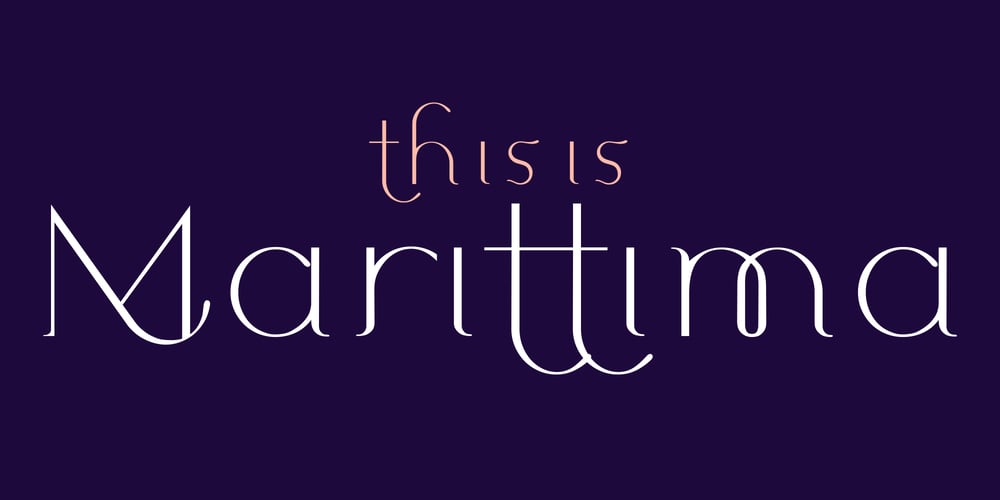
Marittima Font Family was designed by David Szabo and published by LostandFoundry. Marittima contains 2 styles and family package options. Marittima is a beautifully expressive new classical font for designers from LostandFoundry.This typeface has unique characteristics and embraces fluidity, chic and luxury, without being too traditional, as it has a slightly modern feel to it. When you need a distinctive serif font with its own identity that bridges the classic and the modern, Marittima is perfect to add to your type catalogue. Use Marittima in your design projects – in headlines, logos, packaging design, t-shirt designs and text. And online, in your websites, blogs, vlog titles, Youtube creator titles and social media post titles. Marittima supports French, German and other European languages.